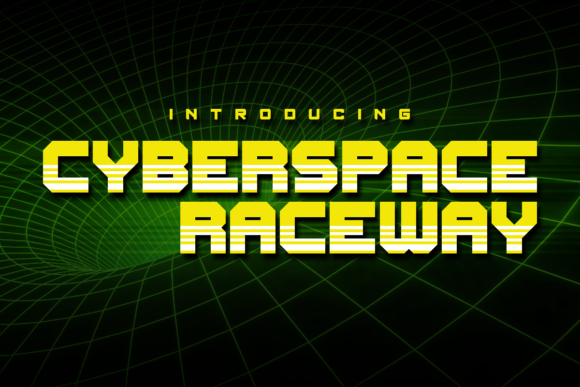
Cyberspace Raceway Font: A Futuristic Display Font for Stunning Designs
In the realm of digital design, fonts play a crucial role in conveying the tone and aesthetic of a project. For designers and crafters seeking a font that embodies speed, innovation, and futurism, the Cyberspace Raceway Font is an exceptional choice. This article delves into the features, uses, and benefits of the Cyberspace Raceway Font, exploring how it can elevate your designs to new heights.
The Cyberspace Raceway: A Futuristic Display Font
The Cyberspace Raceway is a futuristic display font which can be used for various designs. Its sleek and modern design makes it perfect for projects that require a sense of velocity and dynamism. Whether you’re working on a logo, a poster, a website, or any other visual project, this font is sure to make a statement.
Key Features of Cyberspace Raceway Font
- Unique and Futuristic Design: The Cyberspace Raceway Font boasts a distinctive and forward-thinking design that sets it apart from more traditional fonts.
- Highly Versatile: This font can be used across a wide range of projects, from digital media to print materials, due to its clear and readable design.
- Easily Customizable: Designers can easily manipulate the font to suit their project’s needs, adjusting size, color, and style to achieve the desired impact.
- Perfect for Headers and Titles: While it can be used for body text, the Cyberspace Raceway Font truly shines when used for headers and titles, where its futuristic appeal can be fully appreciated.
Applications of Cyberspace Raceway Font
The versatility of the Cyberspace Raceway Font makes it suitable for a myriad of applications. Some of the most popular uses include:
- Logo Design: Create a memorable logo that stands out with a modern and dynamic look.
- Poster and Flyer Design: Draw attention with bold and eye-catching titles that convey energy and innovation.
- Web Design: Enhance the user experience with a font that communicates speed and cutting-edge technology.
- Social Media Graphics: Stand out on social media platforms with unique and engaging graphics.
- Packaging Design: Add a modern touch to product packaging and make it more appealing to tech-savvy consumers.
Benefits of Using Cyberspace Raceway Font
Choosing the Cyberspace Raceway Font for your design projects comes with several advantages:
- Instant Recognition: Its unique design ensures that your work gets noticed.
- Professional Look: Achieve a professional and polished look without compromising on creativity.
- Time-Saving: With its highly legible design, it saves time for both designers and readers.
- Cross-Platform Compatibility: Seamlessly integrate the font into various digital and print platforms.
Tips for Maximizing the Potential of Cyberspace Raceway Font
To get the most out of the Cyberspace Raceway Font, consider the following tips:
- Pair with Complementary Fonts: Combine it with simpler fonts for body text to create visual hierarchy.
- Experiment with Colors: Take advantage of the font’s versatility by experimenting with different colors and gradients.
- Adjust Letter Spacing: Fine-tune letter spacing to enhance readability and aesthetic appeal.
- Use it Sparingly: While it’s impactful, using it sparingly can make it more effective.
The Cyberspace Raceway Font is a powerful tool for designers and crafters looking to infuse their projects with a sense of futurism and dynamism. Its unique design, versatility, and ease of use make it an excellent choice for a wide range of applications. By incorporating this font into your design repertoire, you’ll be well-equipped to create stunning, professional-grade work that captures the essence of the digital age.
Whether you’re a seasoned designer or just starting out, the Cyberspace Raceway Font is sure to inspire creativity and help you push the boundaries of what’s possible in digital design.